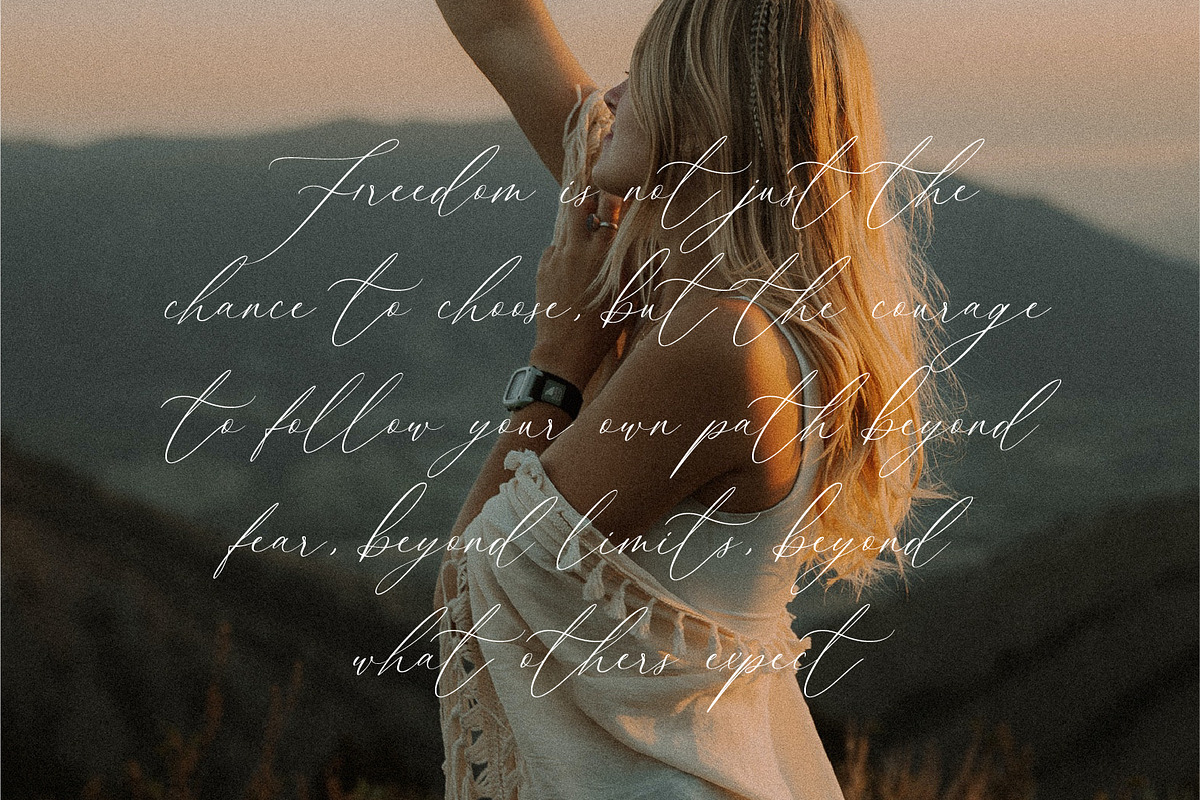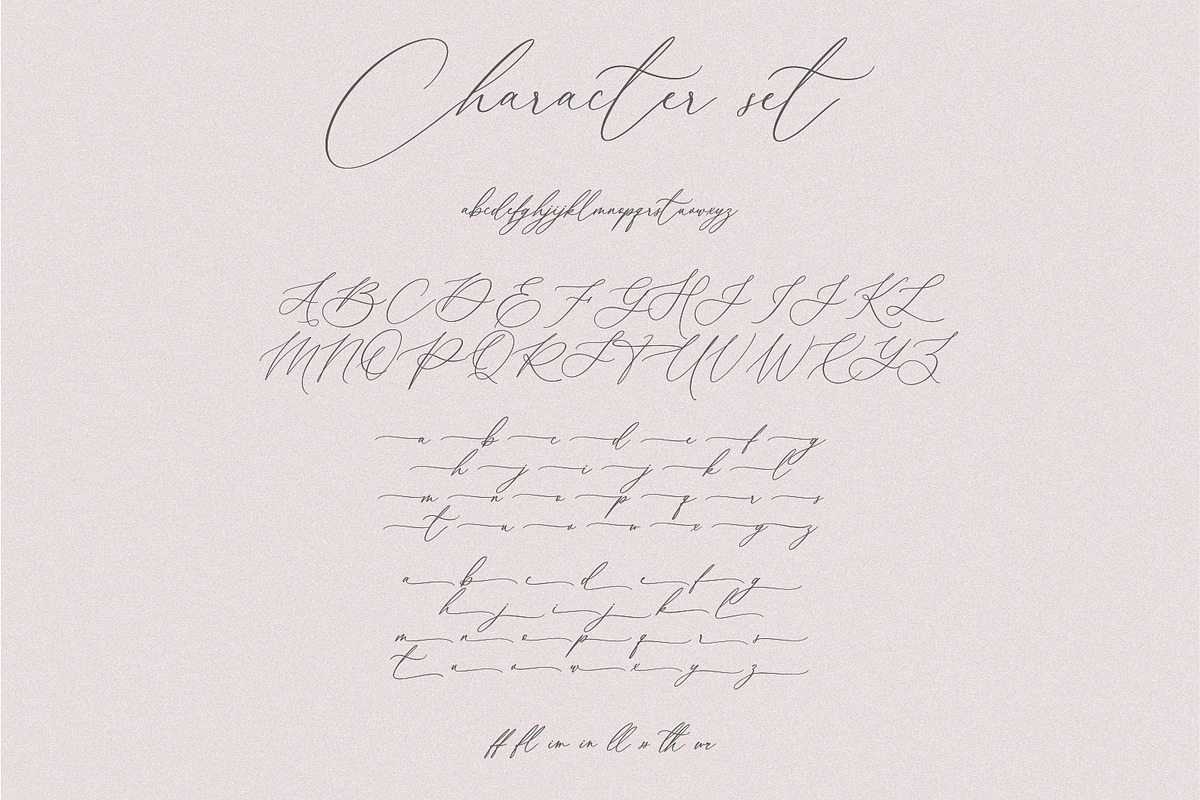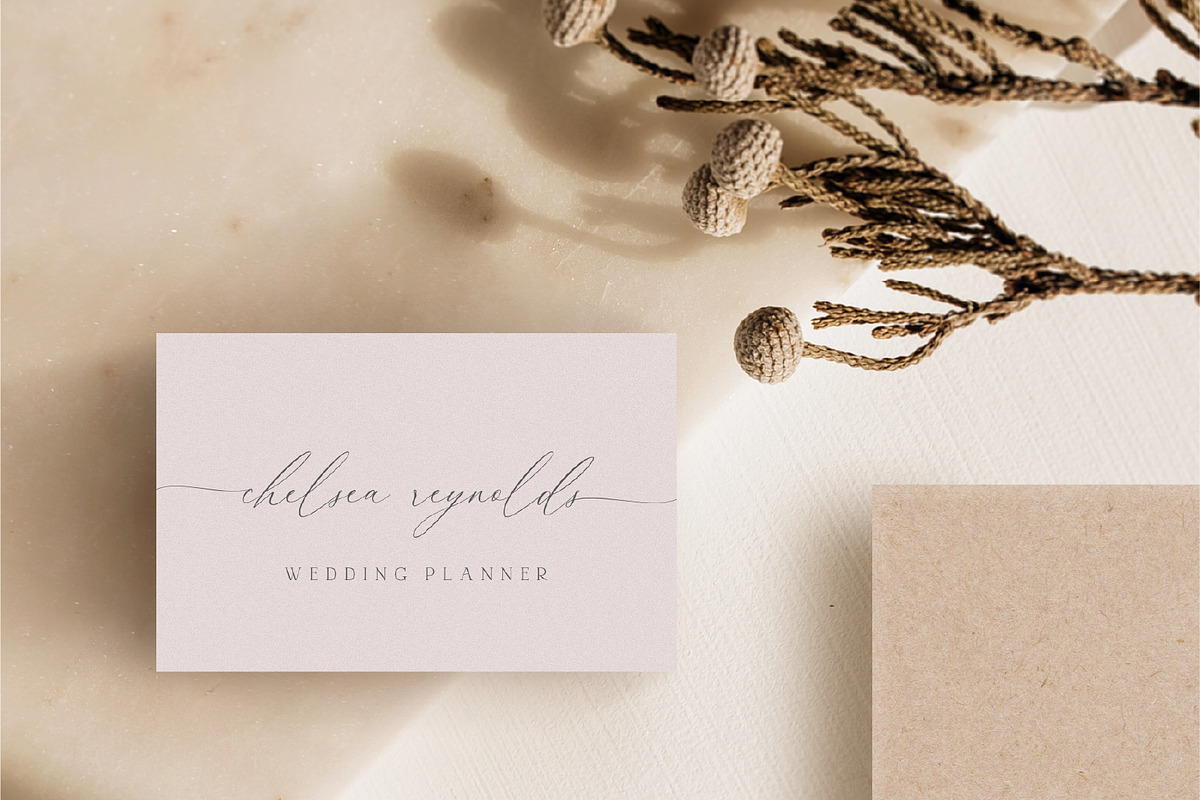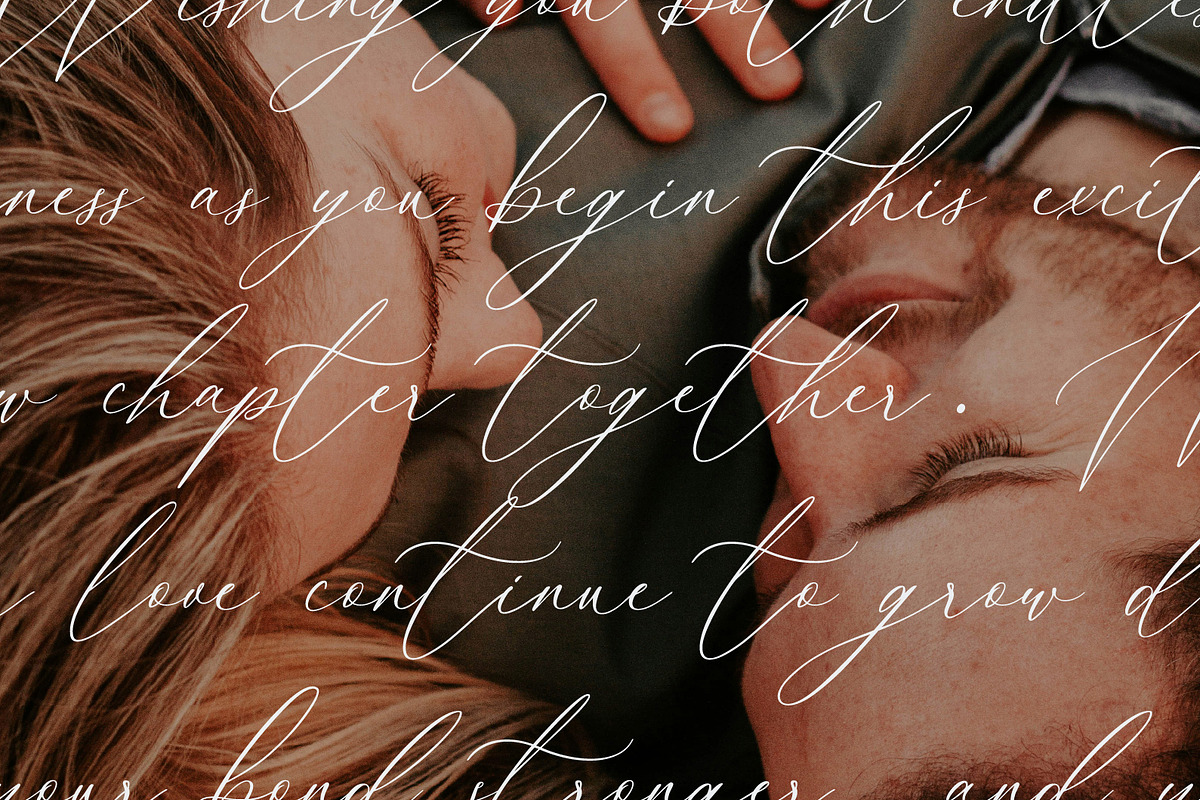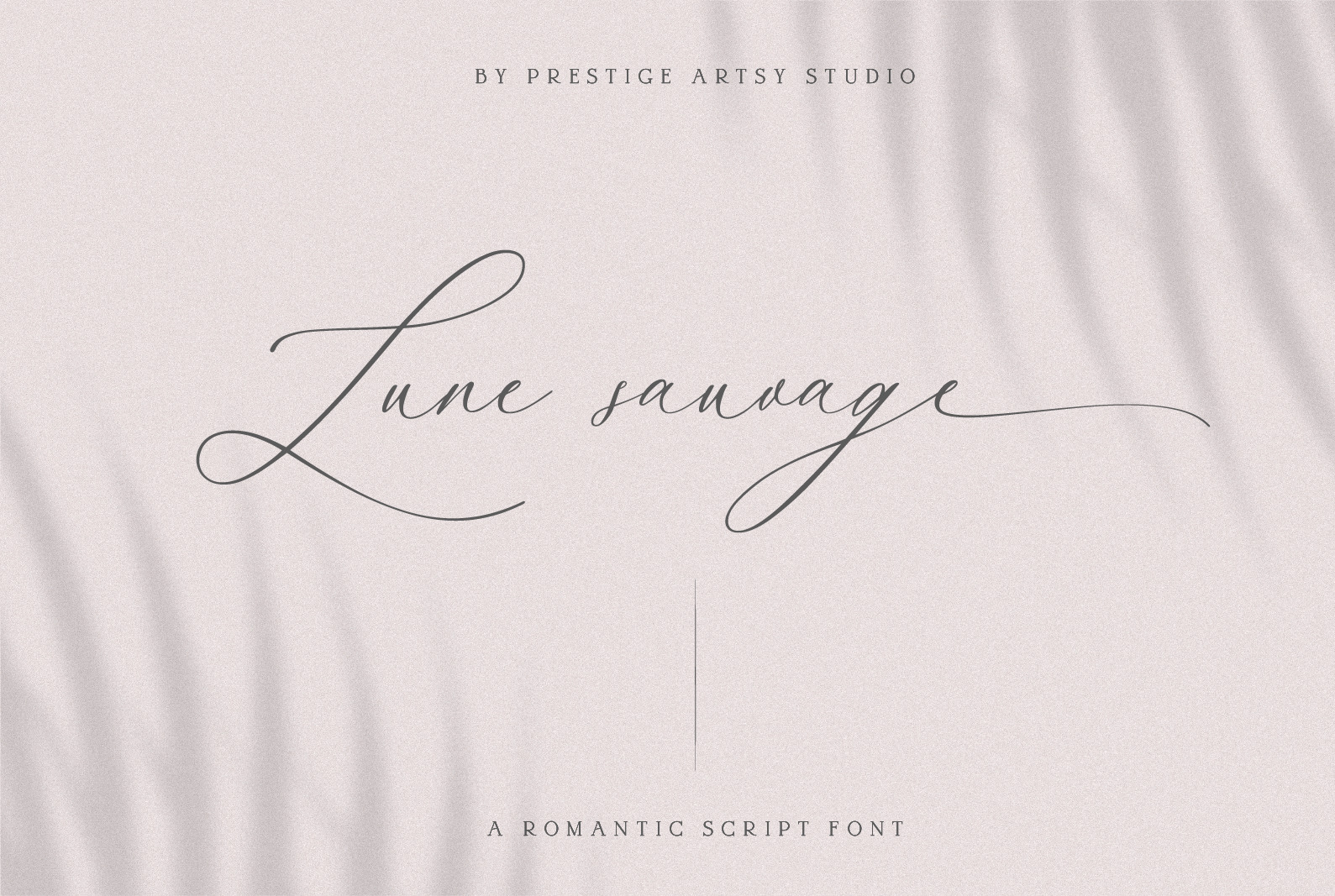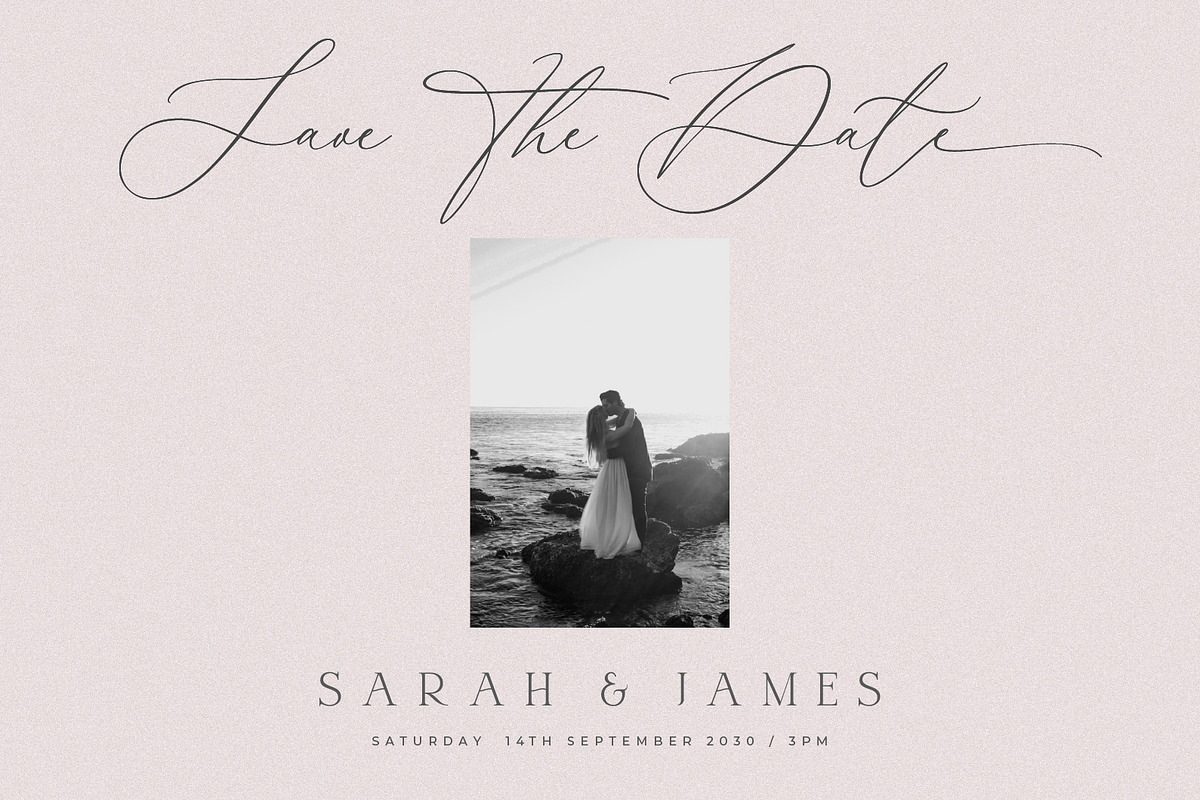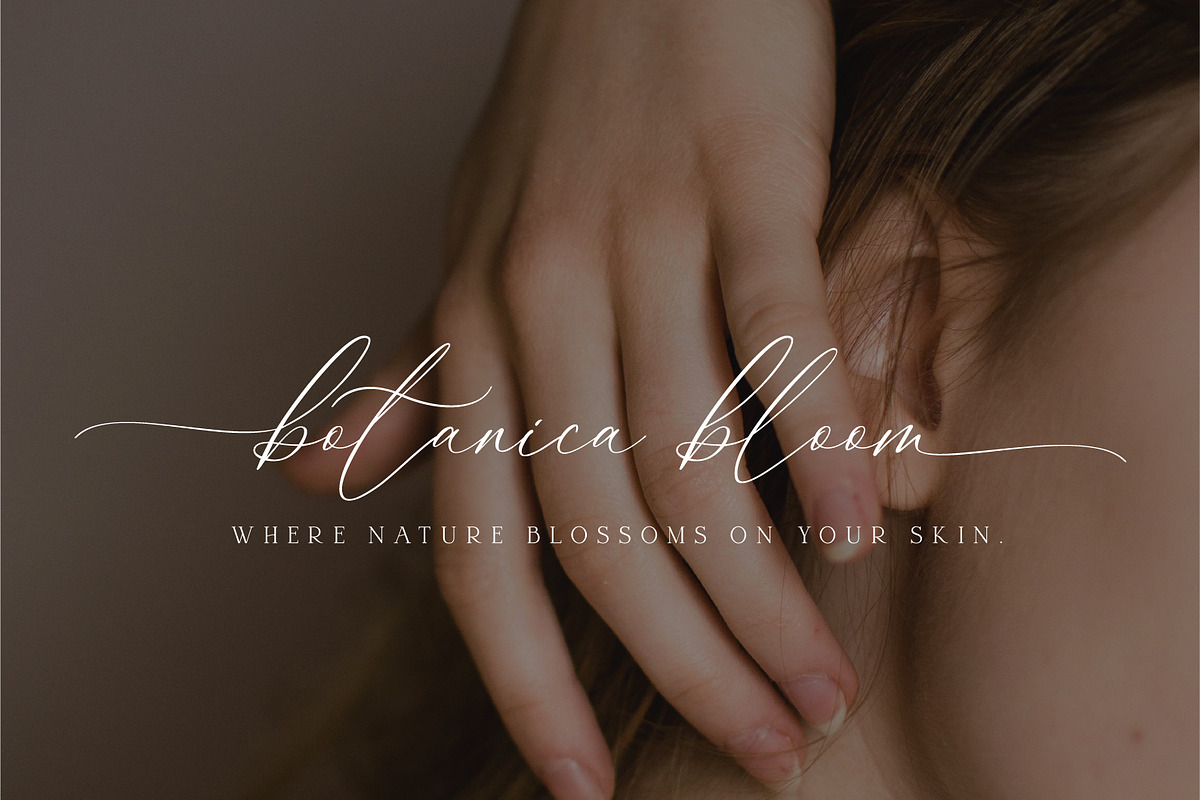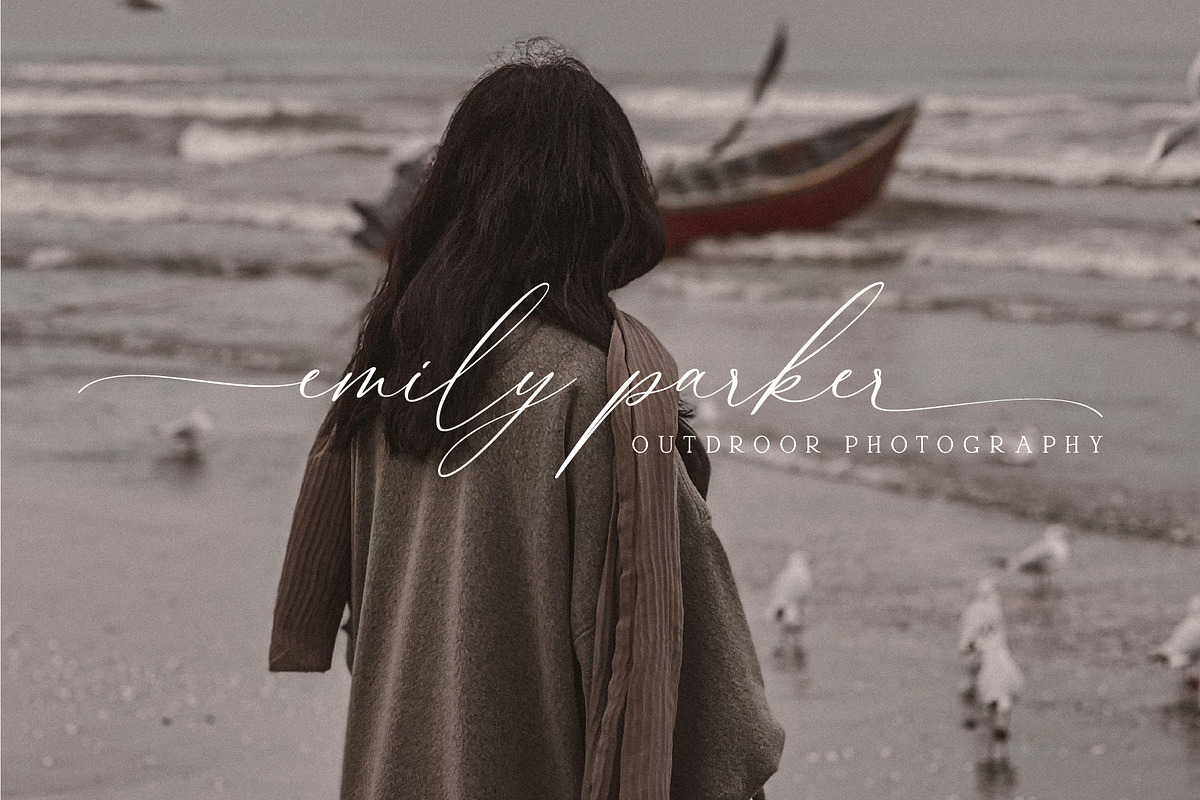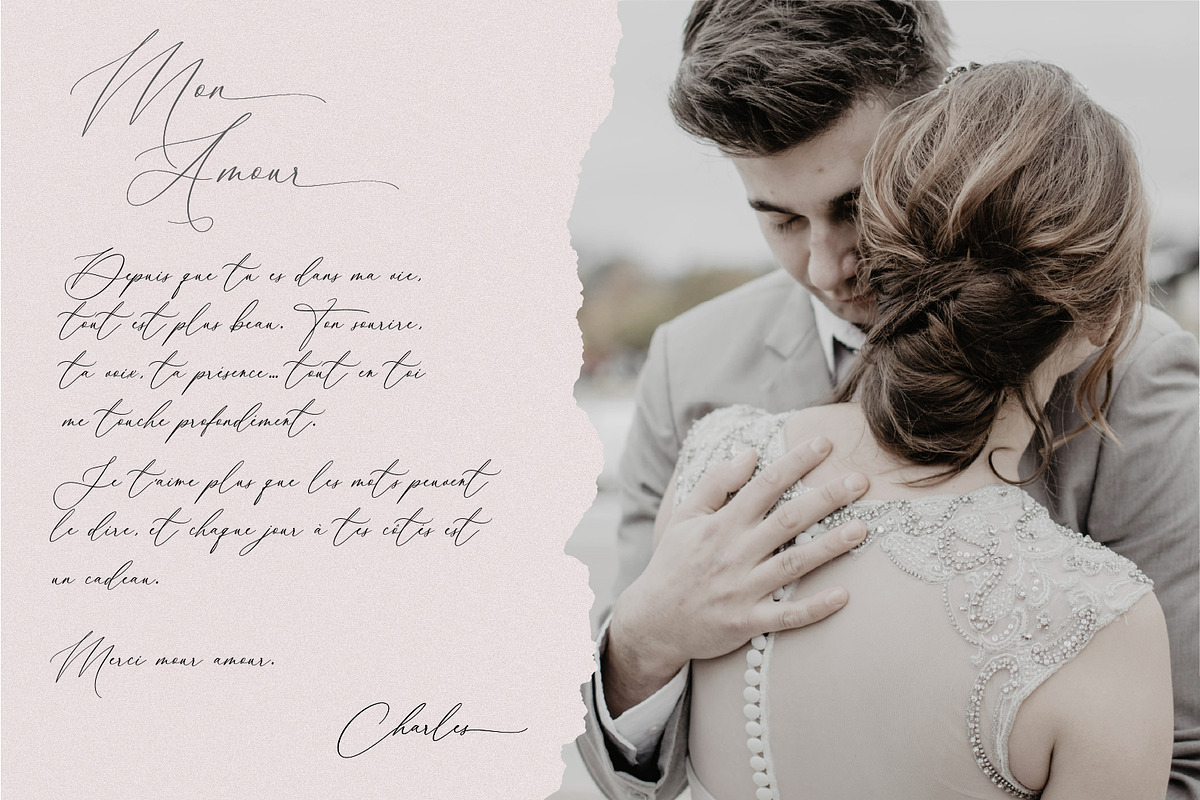
Lune Sauvage A Romantic Script Font
Introducing Lune Sauvage Script, a calligraphy font where elegance meets untamed beauty. With its flowing curves, refined strokes, and lavish left and right swashes, Lune Sauvage brings a romantic and sophisticated touch to every design.
Perfect for wedding invitations, logos, branding, and packaging, this font captures the spirit of graceful freedom and timeless charm.
Elevate your work with Lune Sauvage Script and let your creativity run wild.
Multilingual Support:
Basic
Western European
Central European
South Eastern European
South American
Oceanian